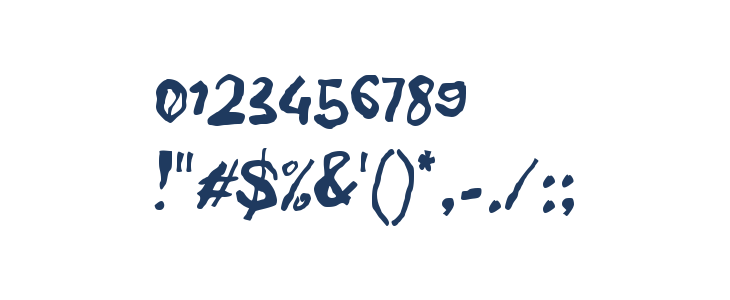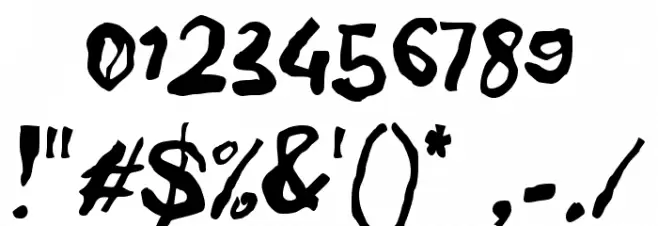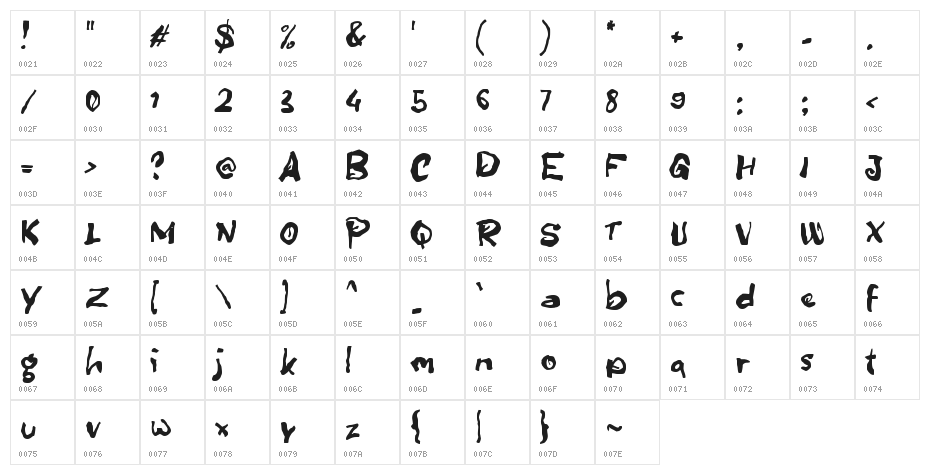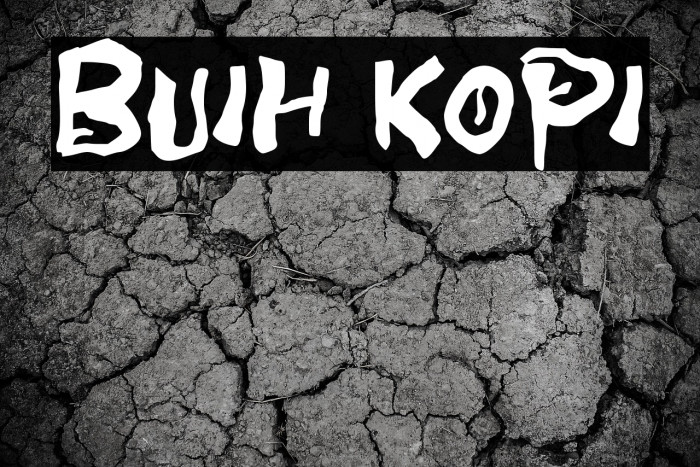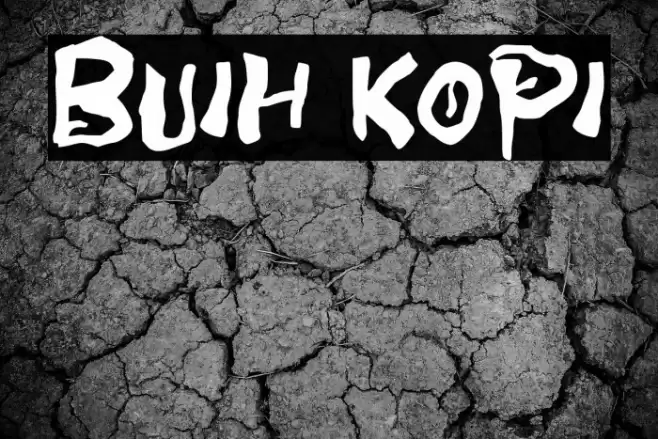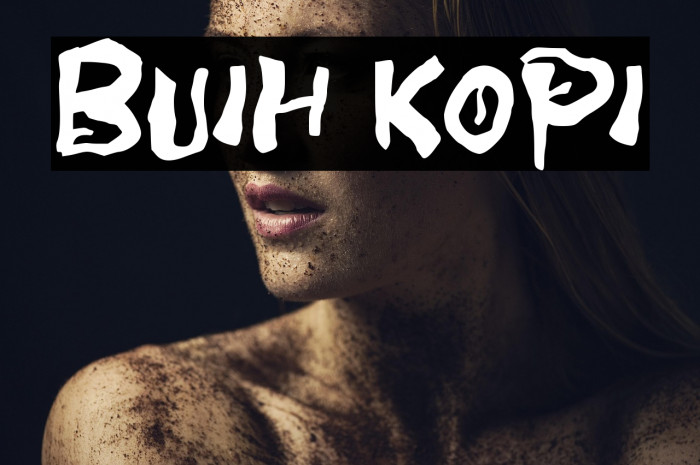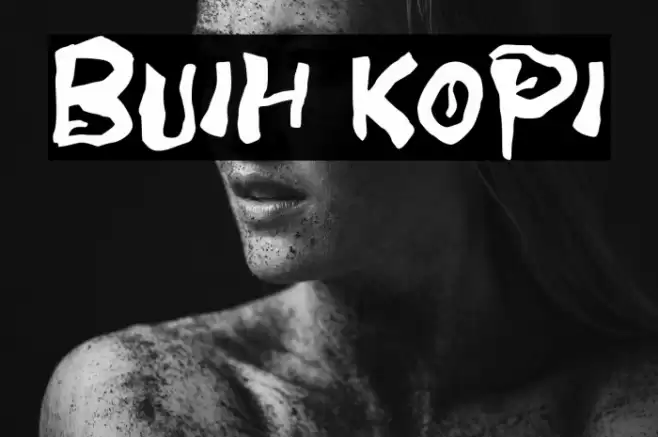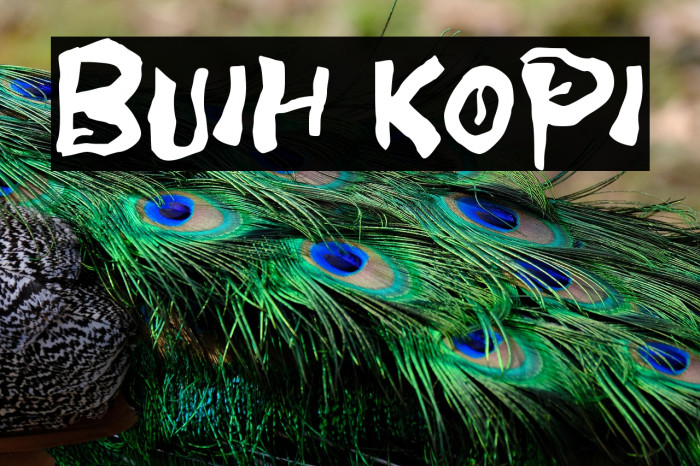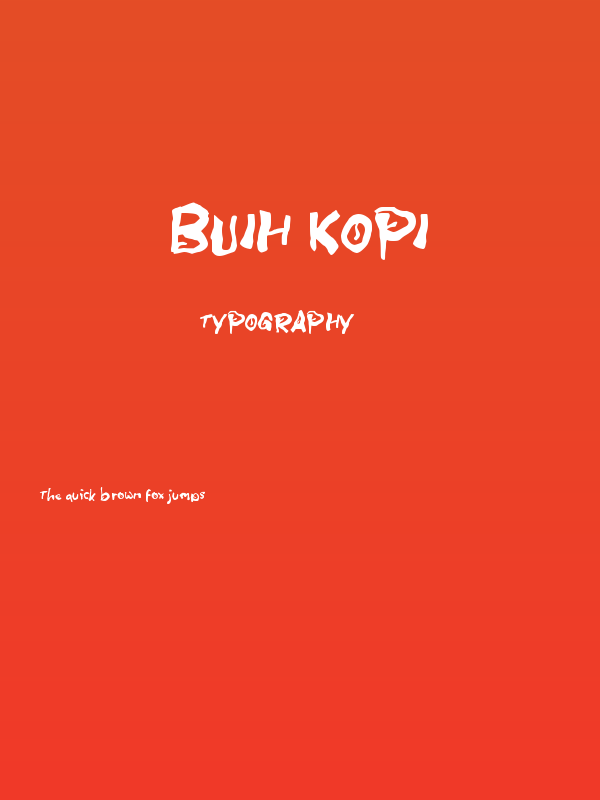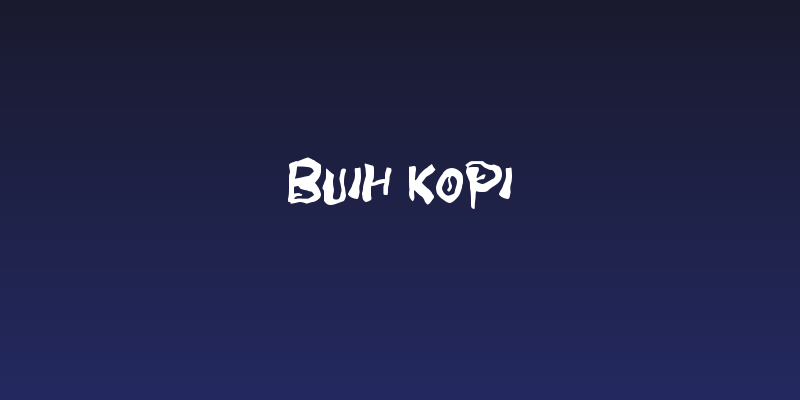
BUIH KOPI Font
BUIH KOPI Description
This font exudes a bold and expressive style, characterized by its thick, uneven strokes and a hand-drawn appearance. The letters have a playful, almost graffiti-like quality, with each character exhibiting unique quirks and variations. The uppercase and lowercase letters maintain a consistent visual weight, while the numbers and special characters integrate seamlessly into the overall design. The font's organic, freeform style makes it stand out, offering a sense of creativity and spontaneity. Its distinctive look is ideal for projects that require a touch of individuality and artistic flair.